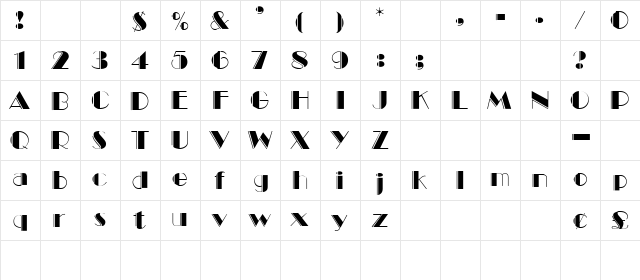
07 Regular
Design Context for 07 Typeface
07 is a composed and adaptable typeface that performs quietly and consistently across a wide range of design contexts.